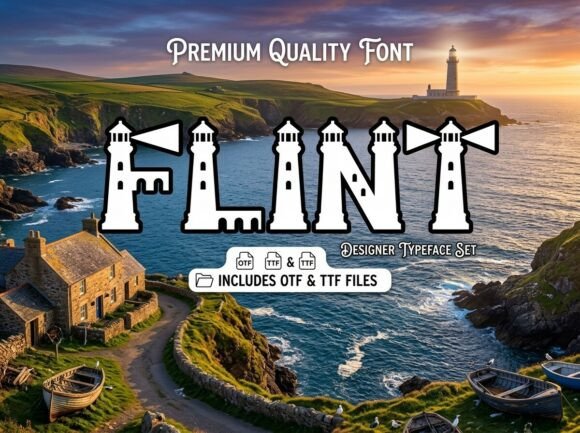
Introducing Flint Font: A Stunning Decorative Display Font
Are you tired of using the same old fonts for your creative projects? Look no further than Flint Font, a unique and artistic display font designed to make a statement. With its strong visual personality and decorative elements, this font is perfect for creators who want to break away from the ordinary and add a touch of elegance to their work.
What Makes Flint Font Special?
Flint Font is a decorative display font that is specifically designed to be the center of attention. Its unique artistic elements and strong visual personality make it perfect for bold headlines, artistic logos, and creative packaging. Whether you’re a designer, craftsperson, or DIY enthusiast, this font is versatile enough to meet your needs while maintaining a professional and polished finish.
Use Cases for Flint Font
Flint Font is perfect for a variety of creative projects, including:
- Headlines and Titles: Use Flint Font to create eye-catching headlines and titles for your blog posts, articles, and social media posts.
- Logos and Branding: Create a unique and memorable logo for your business or brand with Flint Font.
- Packaging and Labels: Add a touch of elegance to your product packaging and labels with Flint Font.
- Invitations and Stationery: Use Flint Font to create beautiful and decorative invitations, greeting cards, and stationery.
Benefits of Using Flint Font
By using Flint Font, you’ll be able to:
- Add Visual Interest: Flint Font’s unique artistic elements and strong visual personality will add visual interest to your creative projects.
- Stand Out from the Crowd: With its decorative elements and ALL-CAPS design, Flint Font will help your project stand out from the crowd.
Tips for Using Flint Font
Here are some tips for getting the most out of Flint Font:
- Use it Sparingly: Because Flint Font is a decorative font, it’s best to use it sparingly to avoid overwhelming your design.
- Experiment with Colors: Try pairing Flint Font with different colors to create a unique and eye-catching design.
- Mix and Match: Experiment with mixing and matching Flint Font with other fonts to create a unique and visually interesting design.
Flint Font is a stunning decorative display font that is perfect for creators who want to add a touch of elegance and sophistication to their work. With its unique artistic elements, strong visual personality, and versatility, this font is sure to make a statement. Whether you’re a designer, craftsperson, or DIY enthusiast, Flint Font is a great addition to your font collection.